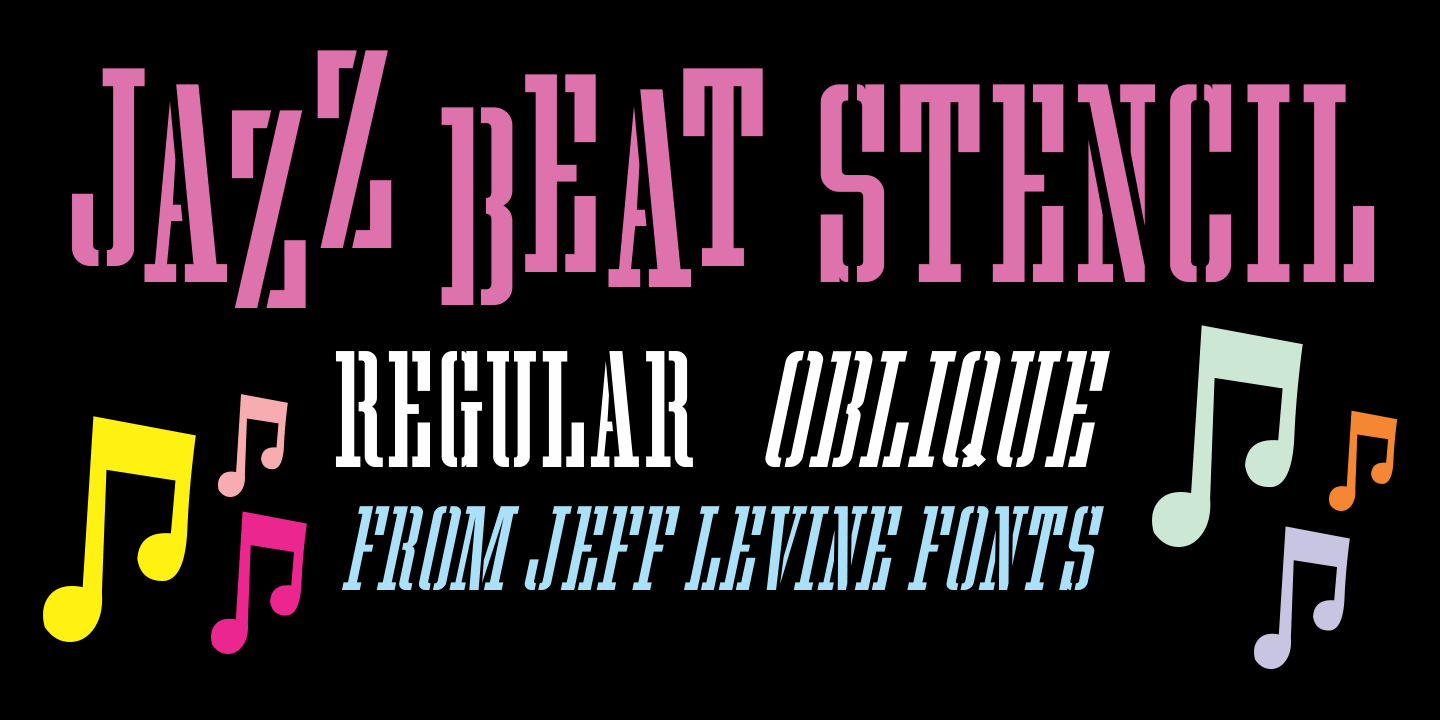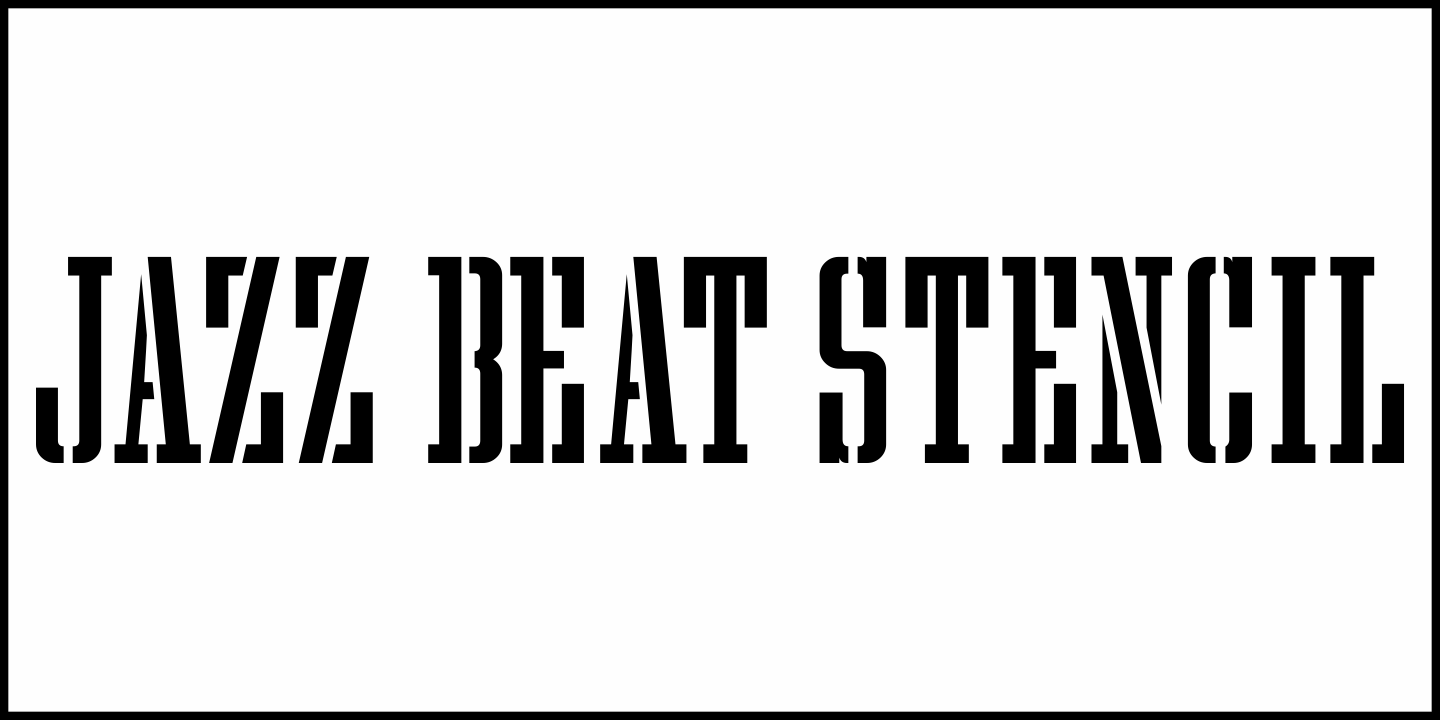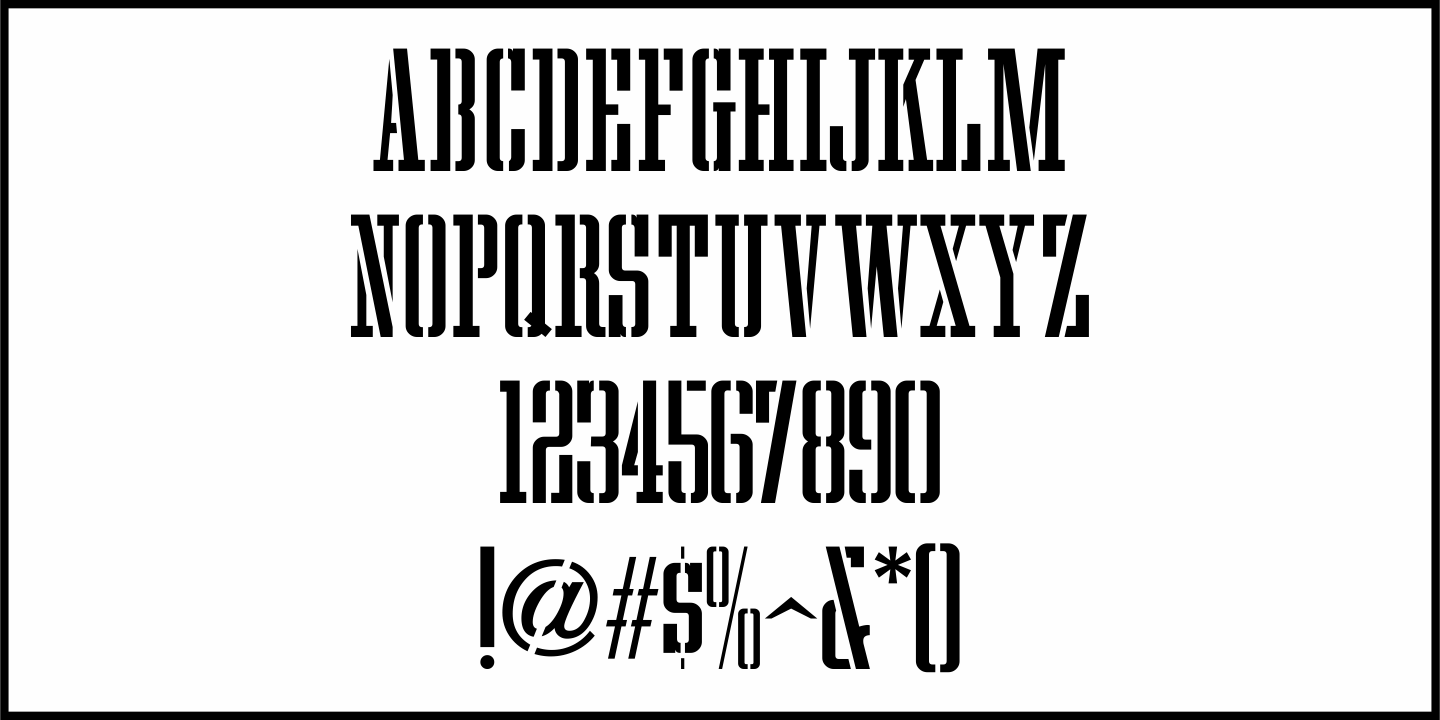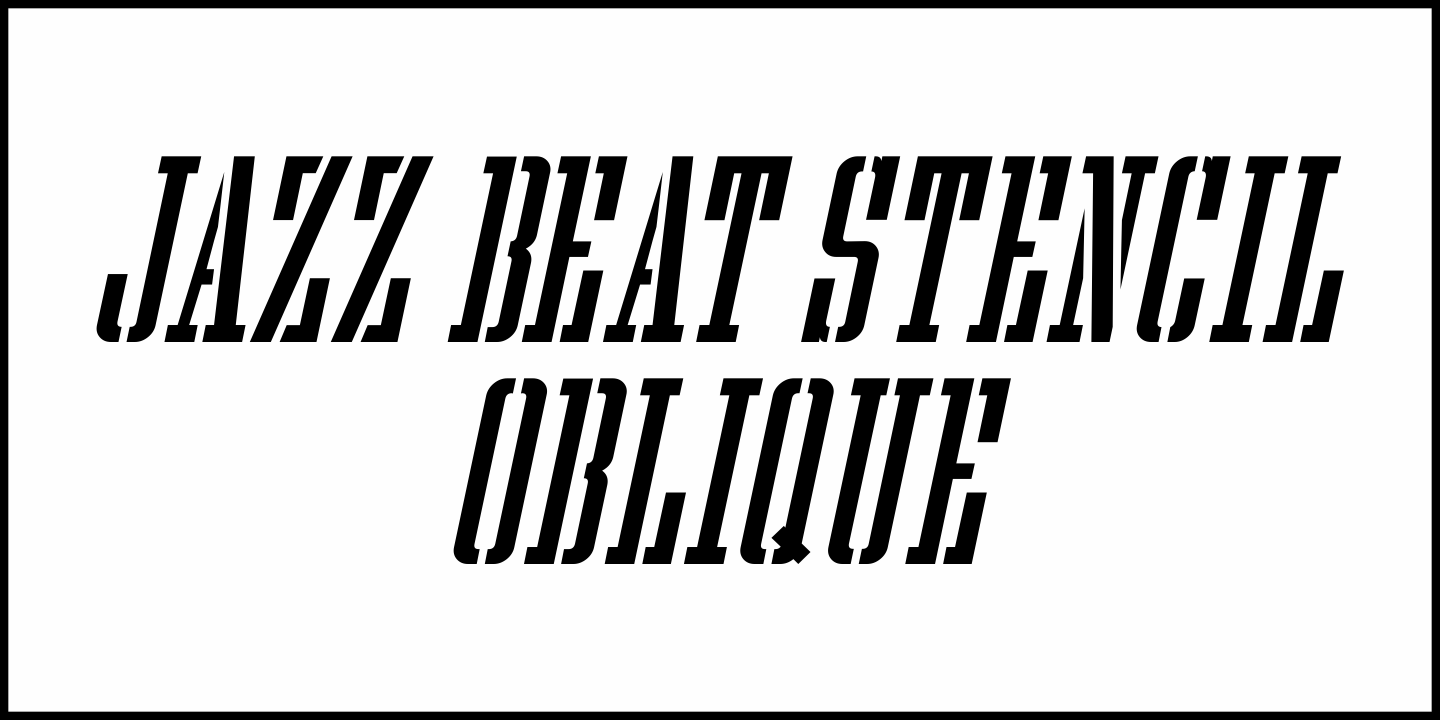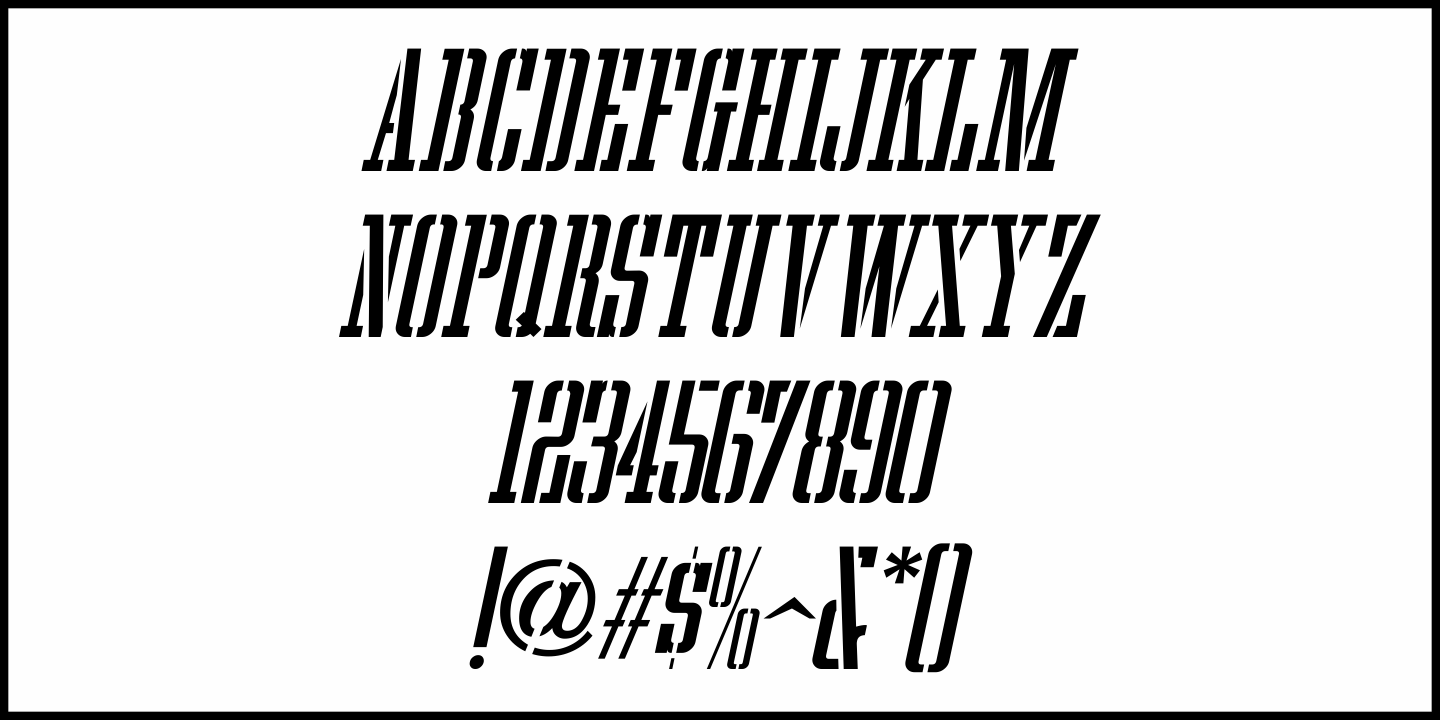
Jazz Beat Stencil
Buy NowThe 1960 British film 'Beat Girl” (released in the U.S. as 'Wild for Kicks”) was a typical [for its time] story of a teenage girl looking to have some fun by hanging out with SoHo beatniks and going against parental authority.
One of the posters for the film features the title in a condensed slab serif stencil form, with eroded edges. The basic letter forms were smoothed out and cleaned up resulting in Jazz Beat Stencil JNL, which is available as in both regular and oblique versions.